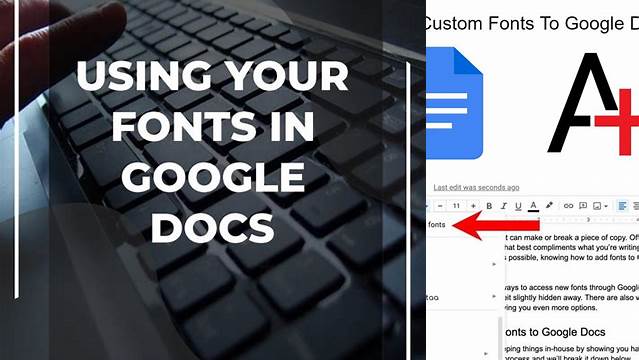
Add Custom Fonts To Google Docs: A Simple Guide
So, you're looking to spice up your Google Docs with some unique fonts, huh? Well, you've come to the right place! Using custom fonts in Google Docs can really elevate your documents, making them stand out and adding a personal touch. Whether you're working on a presentation, a report, or even just a fun personal project, the right font can make all the difference. Google Docs comes with a decent selection of fonts, but let's be honest, sometimes you need something a bit more... you. In this guide, we'll walk you through the simple steps to add and use custom fonts in Google Docs, so you can unleash your creativity and make your documents truly shine.
Understanding Font Options in Google Docs
Before we dive into adding custom fonts, let's quickly go over the font options already available in Google Docs. Google Docs offers a wide array of pre-installed fonts that cater to various styles and purposes. These fonts are readily accessible from the font dropdown menu in the toolbar. You can choose from classics like Arial, Times New Roman, and Calibri, as well as more modern options like Roboto, Open Sans, and Montserrat. These fonts are great for everyday use and professional documents.
However, the default font library might not always have what you're looking for. Maybe you need a specific font to match your brand identity, or perhaps you just want something that's a little more unique. That's where custom fonts come in. By adding custom fonts, you can expand your design possibilities and create documents that truly reflect your personal style. Whether you're aiming for a vintage look, a playful vibe, or a sleek modern feel, custom fonts can help you achieve your vision. Knowing the difference between the pre-installed fonts and the potential of custom fonts is the first step in creating visually appealing and engaging documents. So, let's get started on how to add those custom fonts and take your Google Docs to the next level!
Adding Custom Fonts to Google Docs
Alright, let's get to the fun part: adding custom fonts to Google Docs! Unfortunately, Google Docs doesn't directly support uploading font files like you might do in other software. Instead, you need to use Google Fonts or find fonts that are already available on the Google Fonts platform. Google Fonts is a vast library of free, open-source fonts that you can easily add to your Google Docs. Here’s how to do it:
- Open Google Docs: First things first, open the Google Docs document where you want to use your custom font.
- Access the Font Menu: Click on the font dropdown menu in the toolbar. It's usually set to Arial or another default font.
- Select "More fonts": At the bottom of the font menu, you’ll see an option that says "More fonts." Click on it.
- Explore Google Fonts: A new window will pop up, displaying the Google Fonts library. Here, you can browse through hundreds of fonts.
- Search for a Font: Use the search bar to find a specific font if you know the name. You can also filter fonts by category (serif, sans-serif, display, handwriting, monospace), language, and popularity.
- Add Your Font: Once you find a font you like, click on it. It will be added to your "My fonts" list on the right side of the window. You can select multiple fonts to add at once.
- Click "OK": After selecting all the fonts you want, click the "OK" button. The fonts will now be available in your font dropdown menu in Google Docs.
Now, whenever you want to use your newly added font, just select it from the font dropdown menu. It’s that simple! Remember, the fonts you add will be available for all your Google Docs, not just the one you were working on when you added them. This makes it super convenient to use your favorite fonts across all your documents.
Managing Your Custom Fonts
Once you've added a bunch of custom fonts, you might want to organize them or remove the ones you no longer need. Managing your fonts in Google Docs is pretty straightforward. Here’s how you can do it:
- Access the Font Menu: Just like when you added fonts, click on the font dropdown menu in the toolbar and select "More fonts" at the bottom.
- View "My fonts": In the "More fonts" window, you’ll see a section labeled "My fonts" on the right side. This is where all the fonts you've added are listed.
- Remove Fonts: To remove a font, simply click the "X" icon next to the font name in the "My fonts" list. This will remove it from your font menu in Google Docs.
- Reorder Fonts: Unfortunately, Google Docs doesn't allow you to reorder the fonts in the "My fonts" list directly. However, the fonts appear in the order you added them, so you can somewhat control the order by removing and re-adding fonts.
- Clear All Fonts: If you want to start fresh, you can remove all the fonts from your "My fonts" list. This can be useful if you've added a lot of fonts and want to declutter your font menu.
Managing your fonts regularly helps keep your font menu clean and easy to navigate. It also ensures that you're only using the fonts that are relevant to your current projects. So, take a few minutes every now and then to go through your font list and remove any fonts you no longer need.
Even with the simple process of adding custom fonts, you might run into a few hiccups. Here are some common issues and how to troubleshoot them:
By following these tips, you can choose fonts that not only look great but also effectively communicate your message.
Using custom fonts in Google Docs is a fantastic way to add personality and flair to your documents. By following the steps outlined in this guide, you can easily add, manage, and troubleshoot fonts to create visually stunning and engaging content. So go ahead, experiment with different fonts, and unleash your creativity! With the right fonts, you can transform your Google Docs from plain text into eye-catching masterpieces. Happy font hunting, guys!